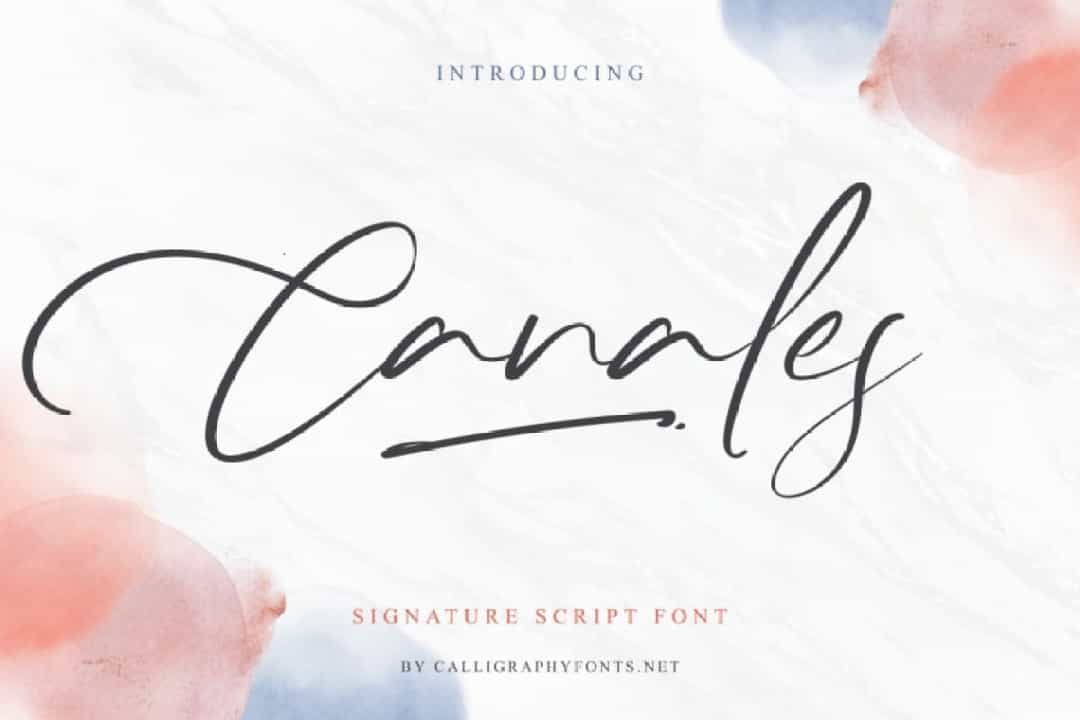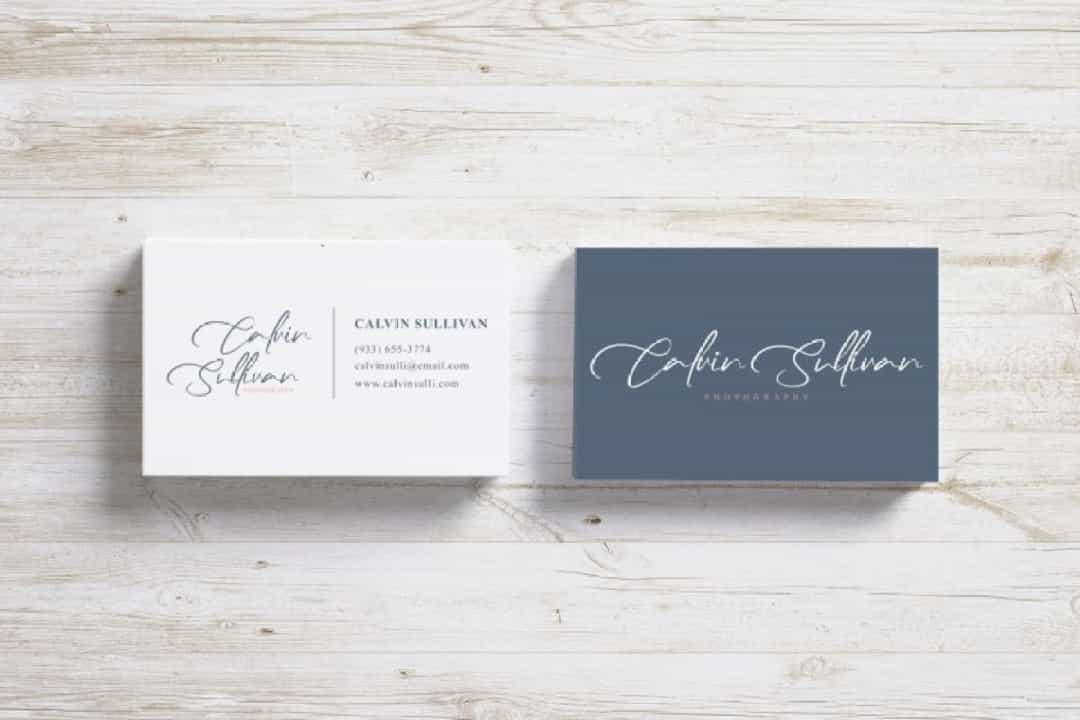
Canales is a beautiful handwritten font that has its unique and individual look about it. It is glamorous, it is signature, it is modern, it is sophisticated, it is luxurious and it is handwritten but at the same time, it is also simple.